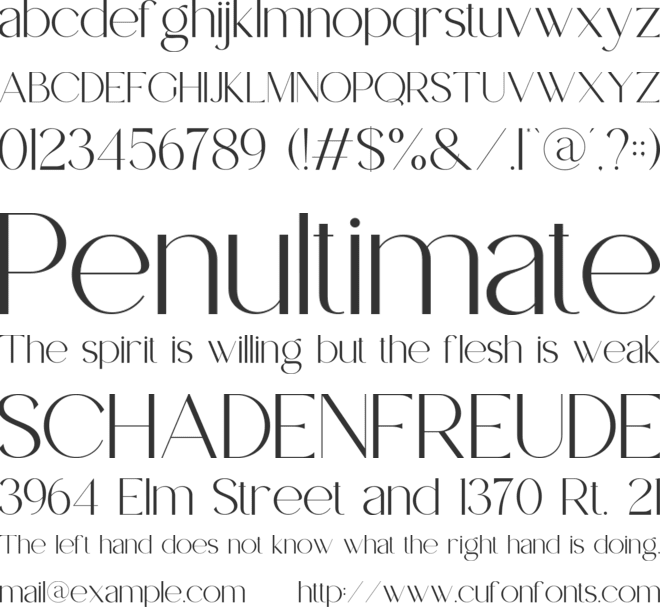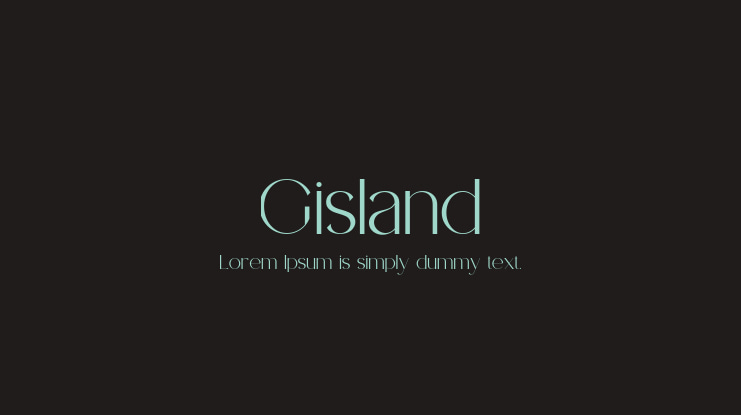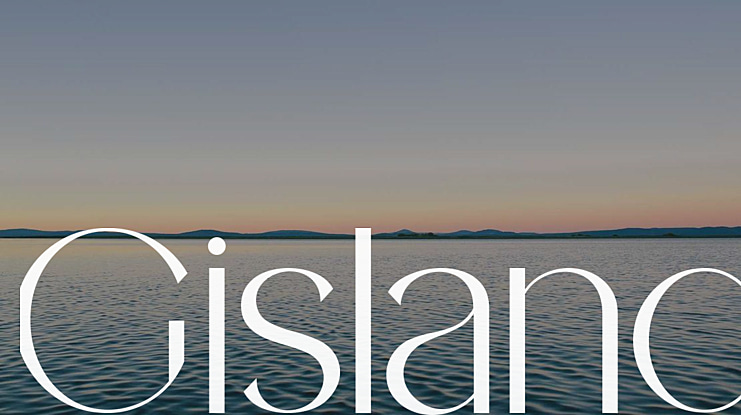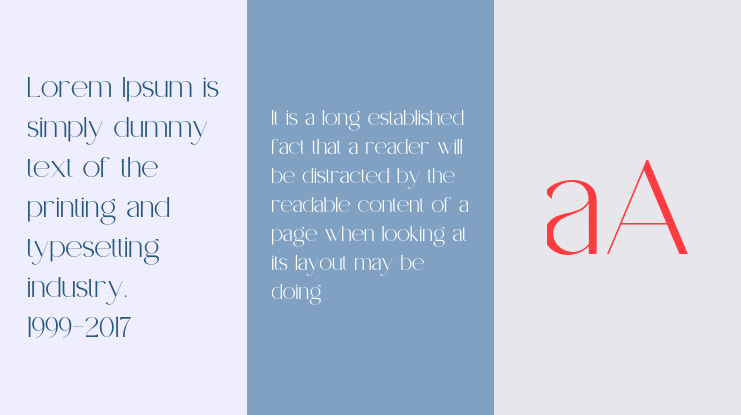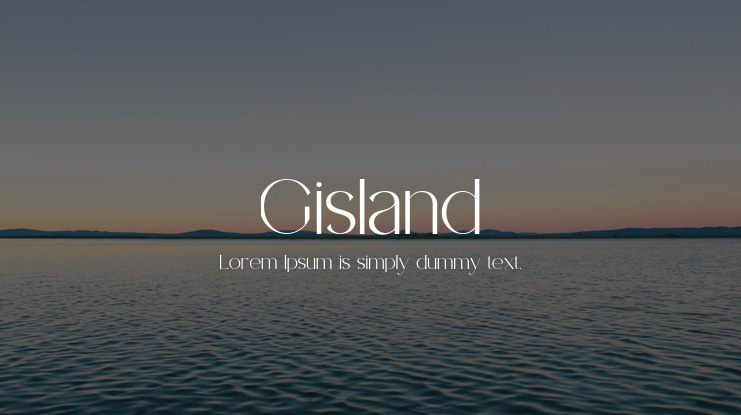
Gisland Font
Gisland Sans Serif is a carefully crafted, balanced, smooth, elegant and stylish sans serif font. attracts attention and beautifies any design. Very suitable to be combined with invitation card designs, company logos, film titles, film names, business cards, book titles, brand names and various other designs. Gisland Sans Serif is a smooth sans serif font that exudes sophistication and cohesion. Its stylish alternation and binding make this font the perfect partner for any project.